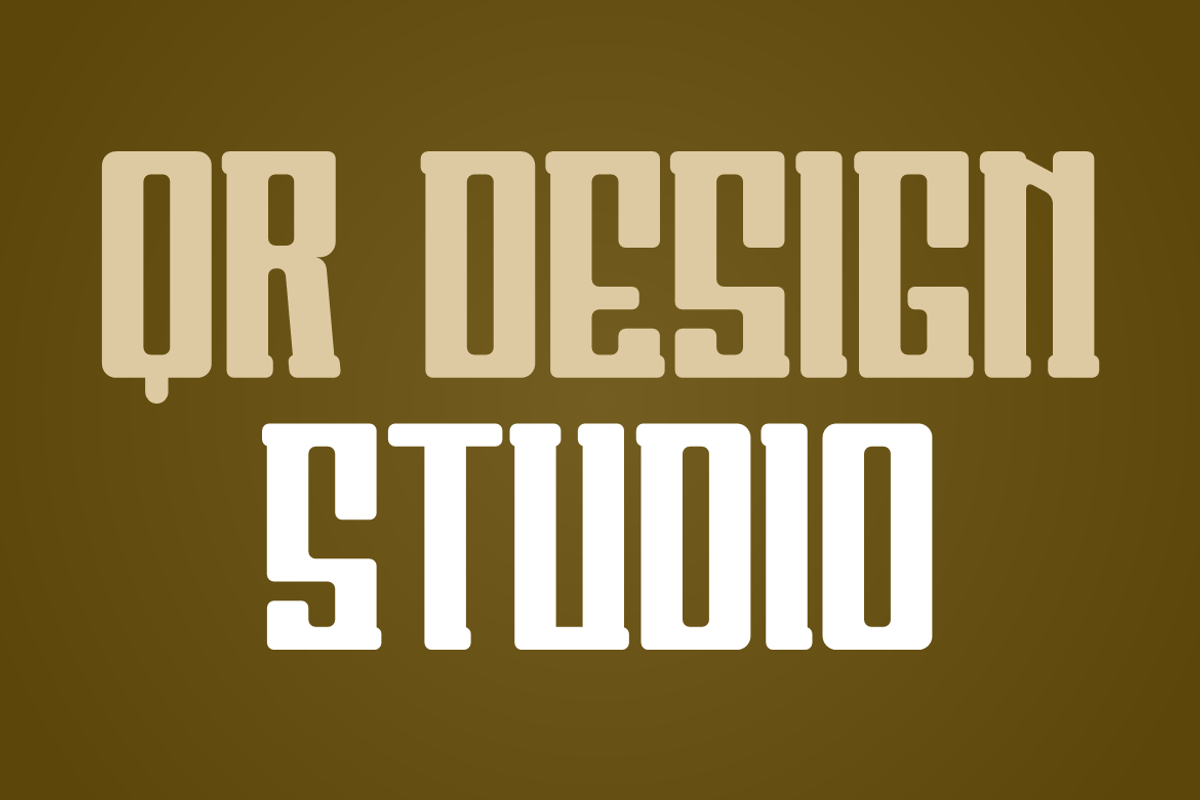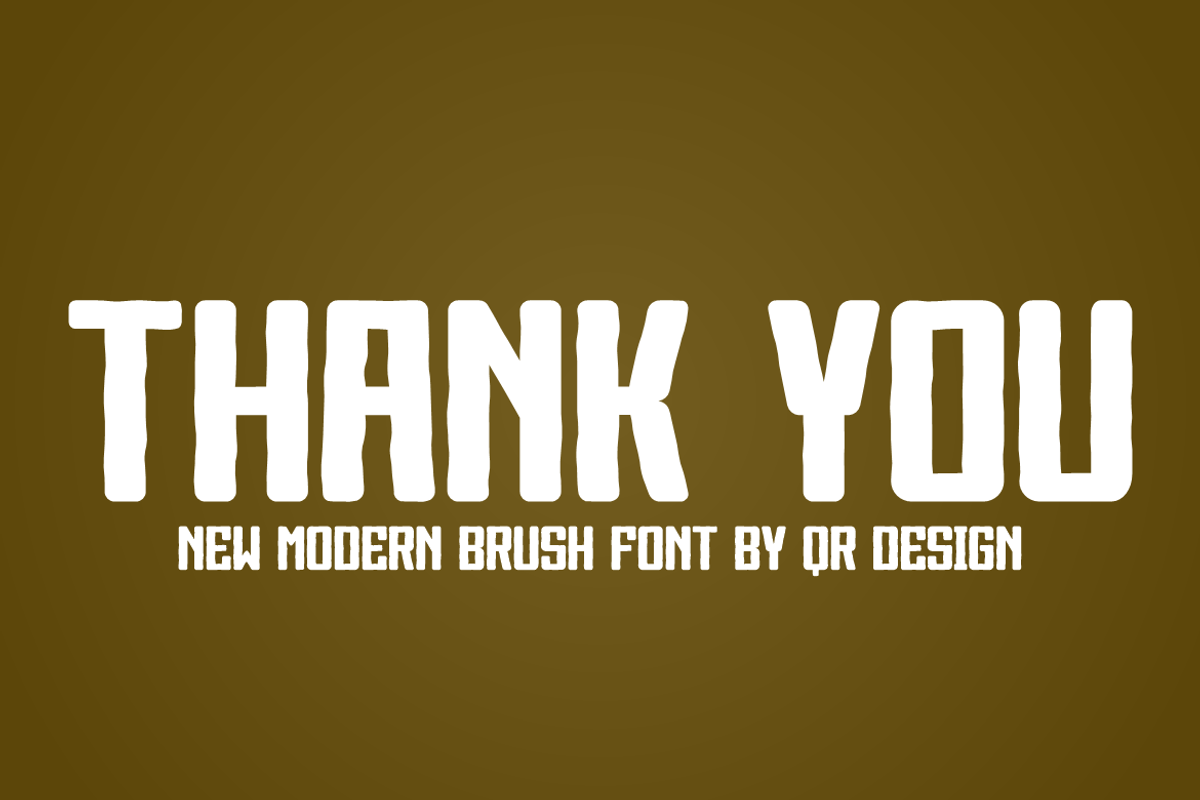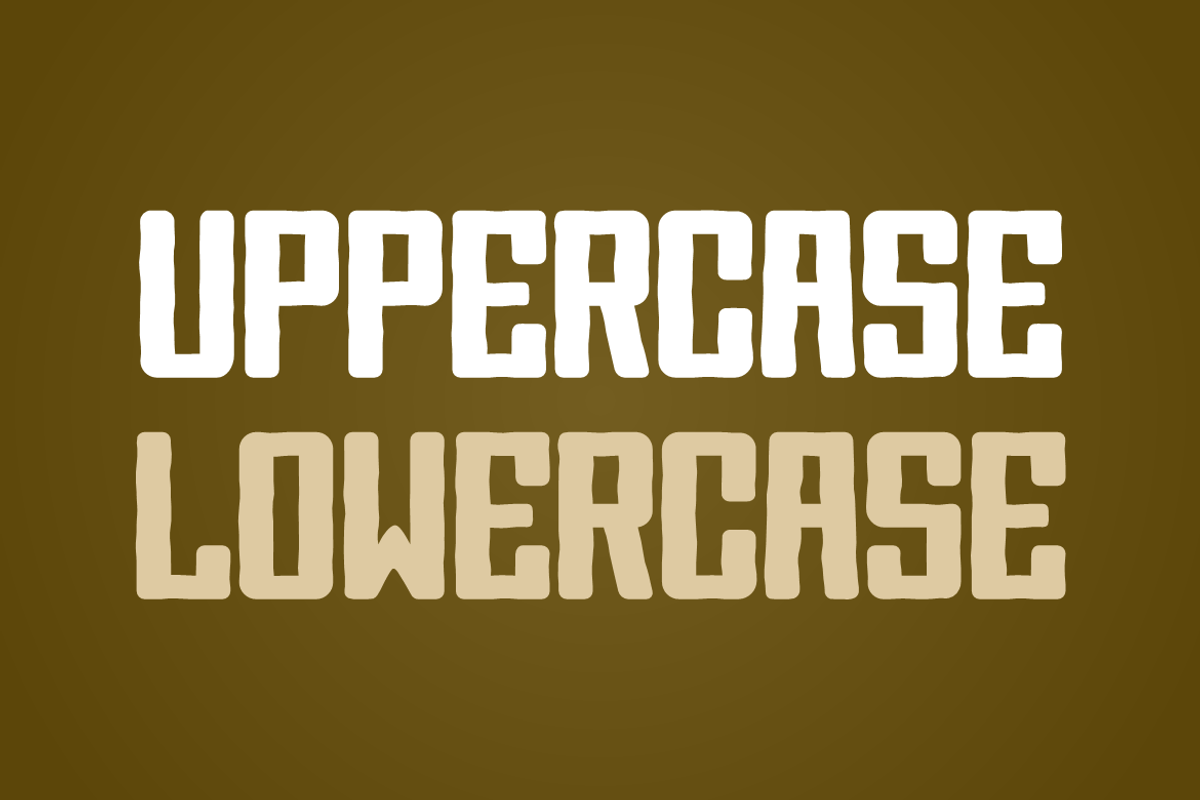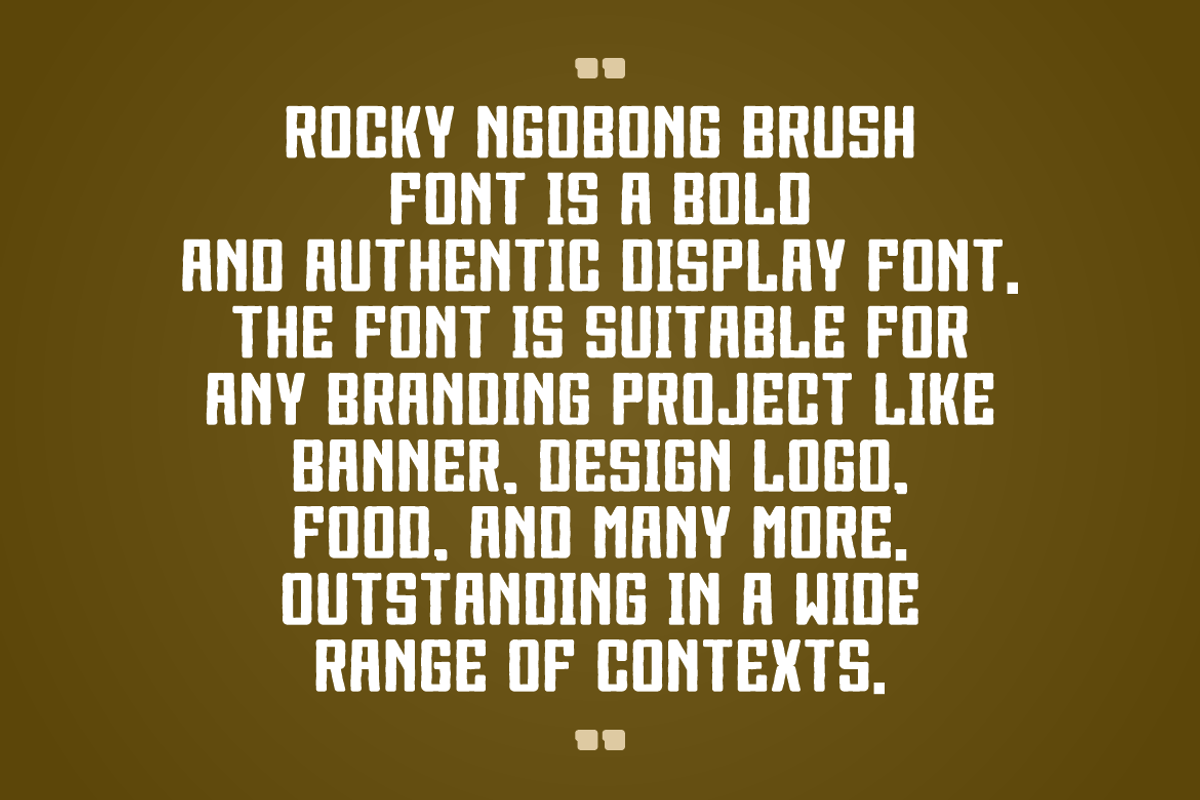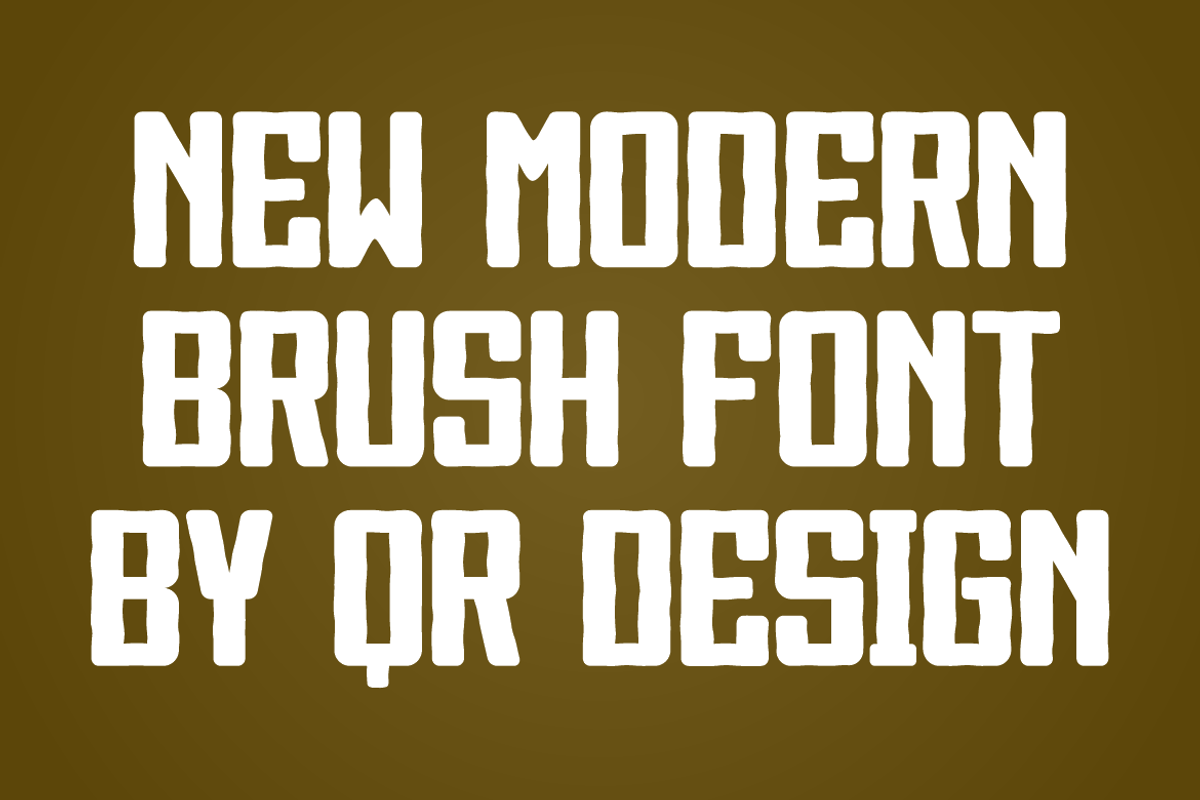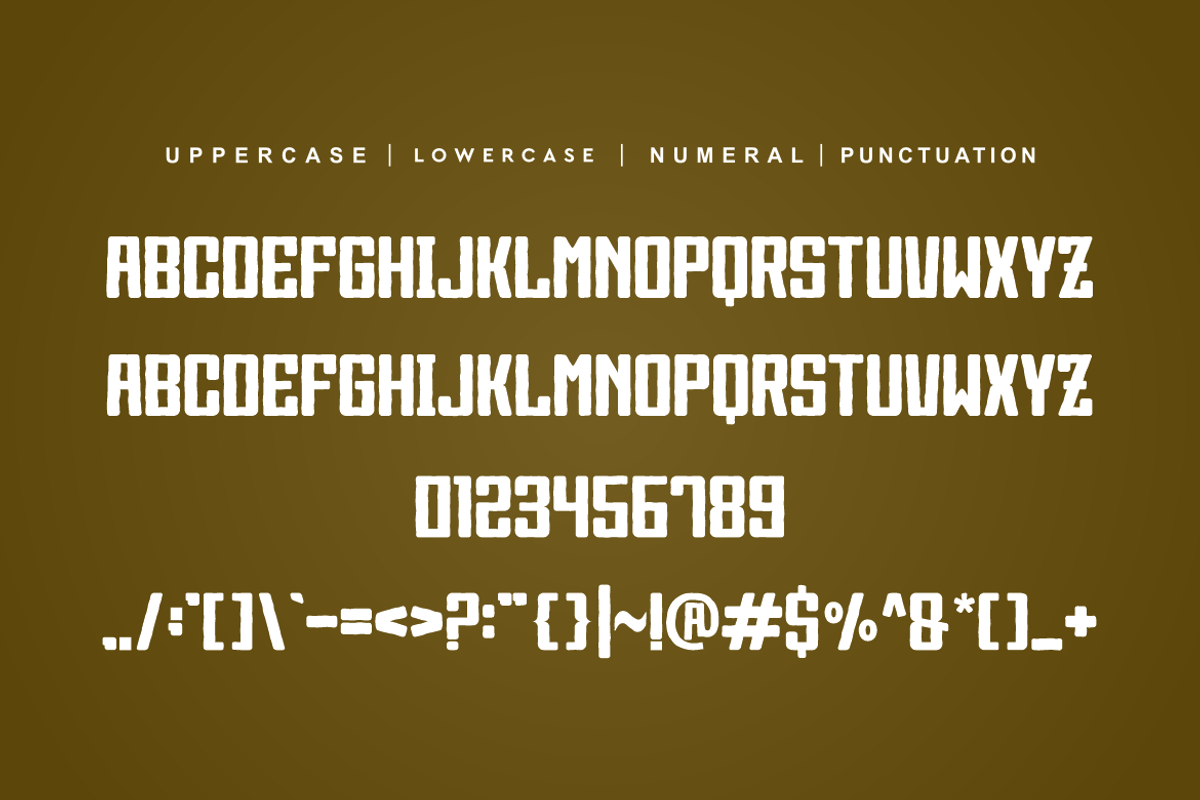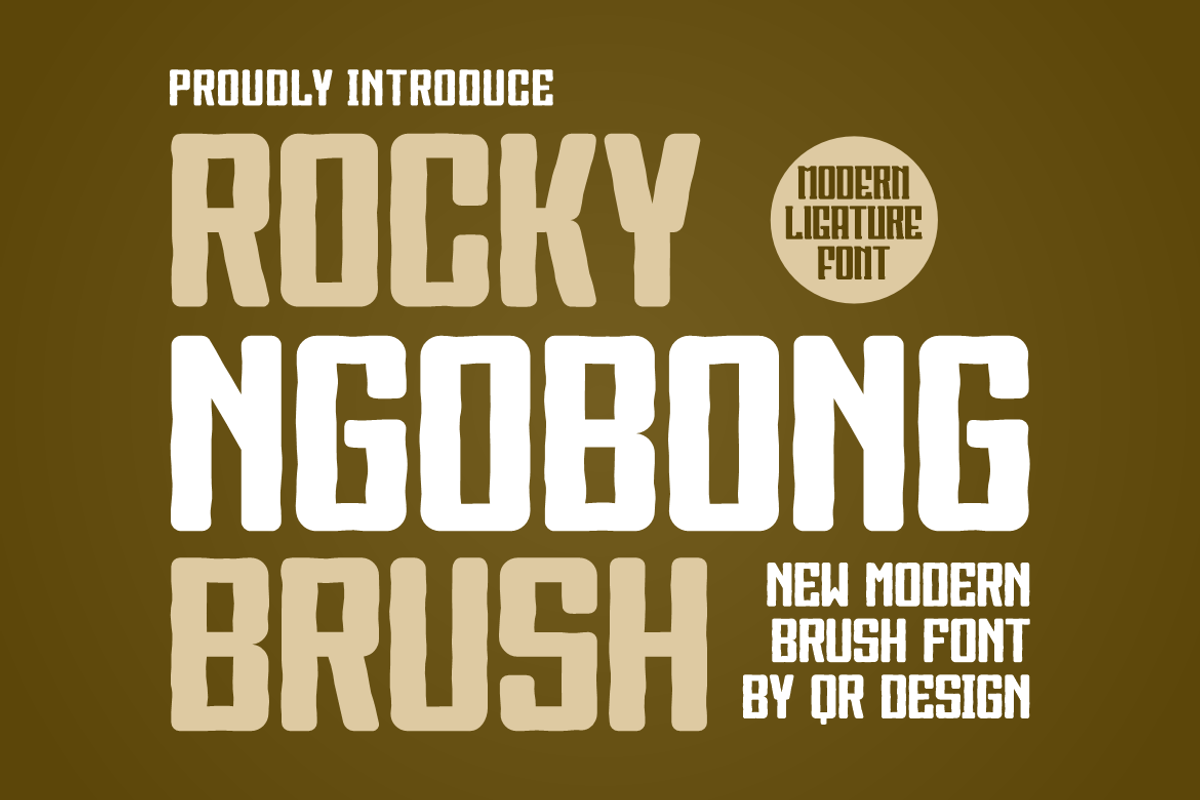
Rocky Ngobong Brush
Rocky Ngobong Brush Font is a bold and authentic display font. The font is suitable for any branding project like logo, sport, food, and many more. Outstanding in a wide range of contexts.